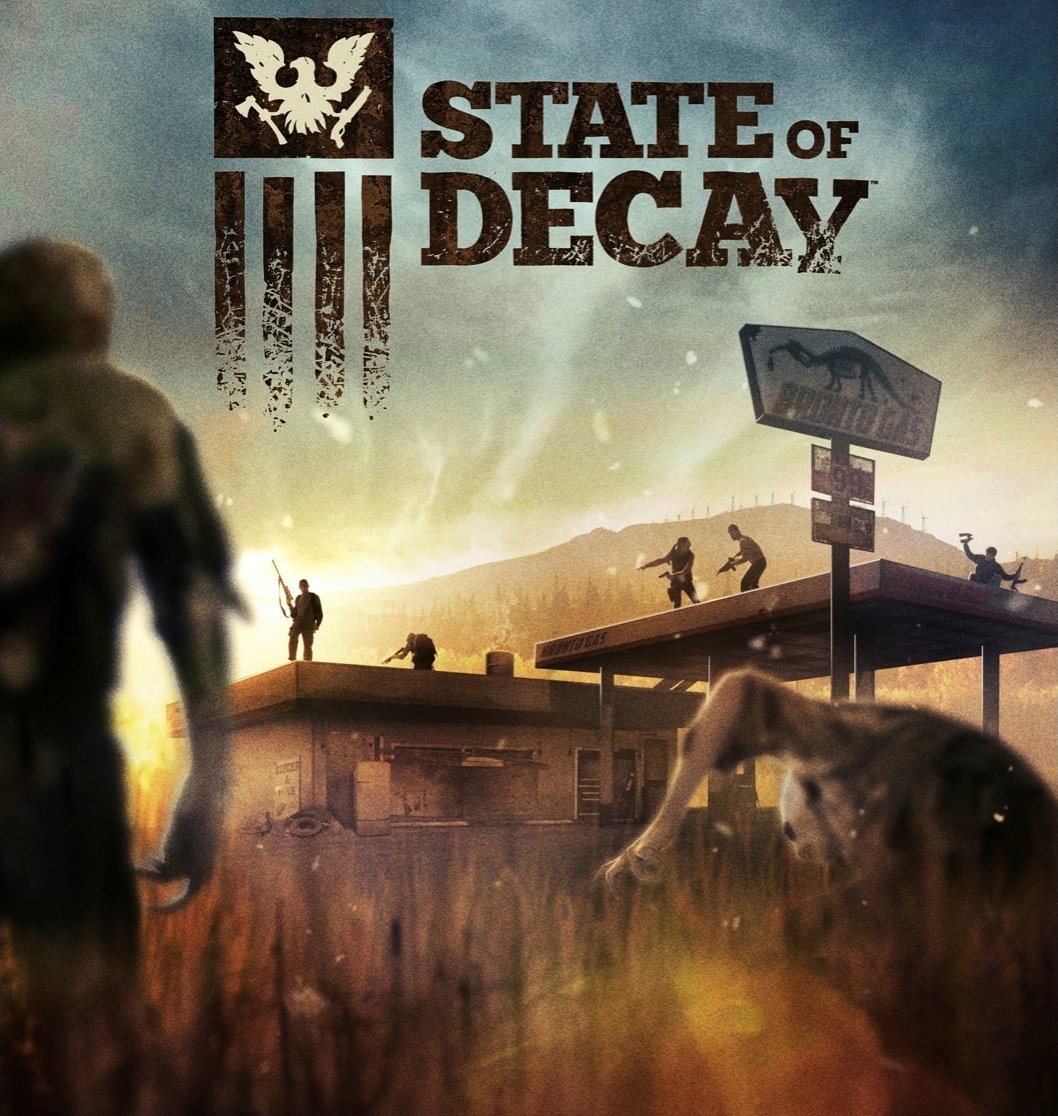
State of Decay Font
ActionState of Decay is an action, adventure, and survival horror stealth gameplay developed by Undead Labs for Microsoft Studios and released in 2013. In the State of Decay, players must survive in a post-apocalyptic world overrun by zombies by scavenging resources, building a base, and forming a community of survivors. The game combines elements of combat, role-playing, and strategy.
State of Decay title lettering uses a slab serif typeface found in a free font called Chunk Five, This font is similar to old American Western woodcuts, broadsides, and newspaper headlines. You can choose between a regular and a textured version of the font.